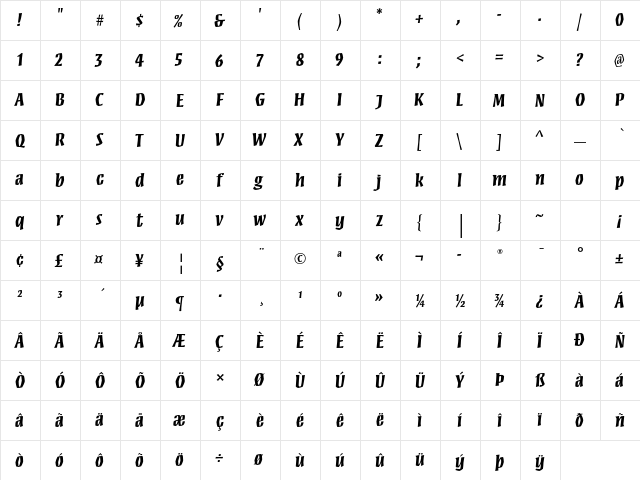
Mezz Std Bold
| Designer | Michael Harvey |
Design Context for Mezz Std Typeface
Mezz Std offers clean, dependable letterforms without strong stylistic allegiance, making it a practical choice for designers who need flexibility. The heavy weight commands attention and anchors typographic hierarchies.
Pro Tip: Pair Mezz Std with a font of contrasting weight or personality to build a more expressive typographic hierarchy.